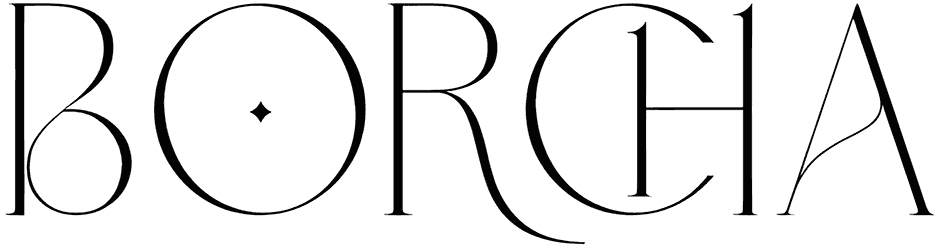
Borcha Font
You need nothing else except Borcha in order to set a dreamy mood for your text. This elegant font gets you covered even in your most fashionable designs, where you need to appear at your best.
Any typography design borrowing the fancy touch of Borcha will end up looking splendid and feeling divine. It’s just wonderful how this serif font handles your branding designs, such as business cards, signs, and logos for jewelry, watches, apparel, antiques, and similar products.